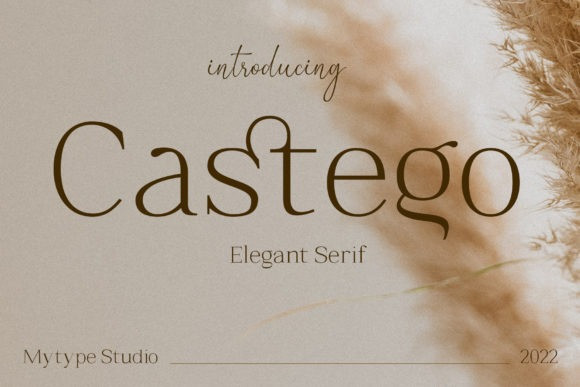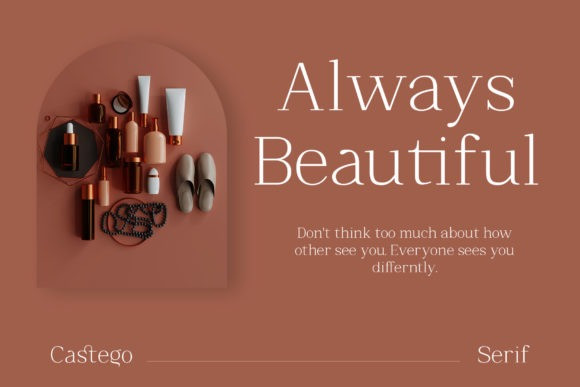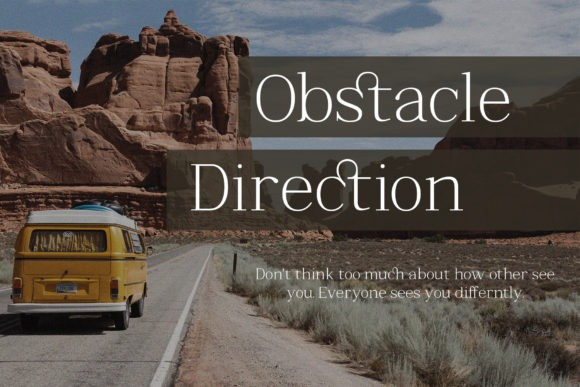
Castego Font
Castego is a modern serif font that embodies elegance and charm in every character. It is perfect for luxury logos, branding, classy editorial designs, women magazines, cosmetic brand, promotional designs, the fashion industry, and more.